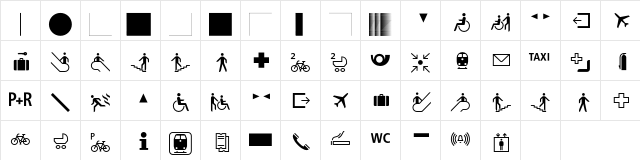
BVGPictEins Regular
Design Context for BVGPictEins
BVGPictEins is a composed and adaptable typeface that performs quietly and consistently across a wide range of design contexts.